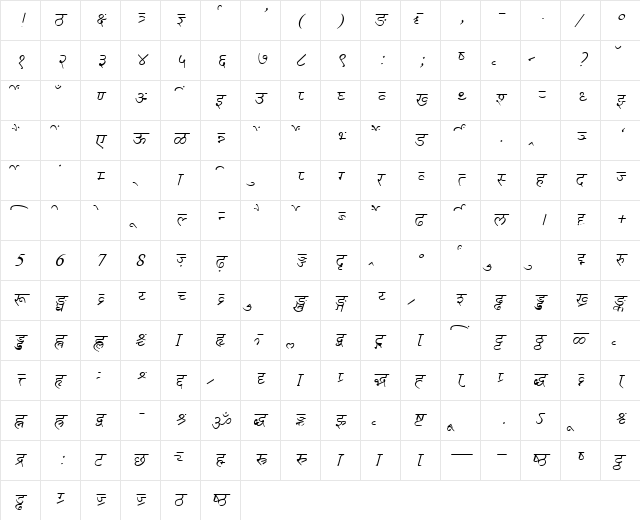
AkrutiDevBharati NormalItalic
Design Context for AkrutiDevBharati Typeface
AkrutiDevBharati is a composed and adaptable typeface that performs quietly and consistently across a wide range of design contexts. The slanted form adds forward momentum and visual energy.
Pro Tip: Try AkrutiDevBharati for annotation and caption copy alongside an upright companion — the contrast in angle creates a dynamic but ordered typographic system.